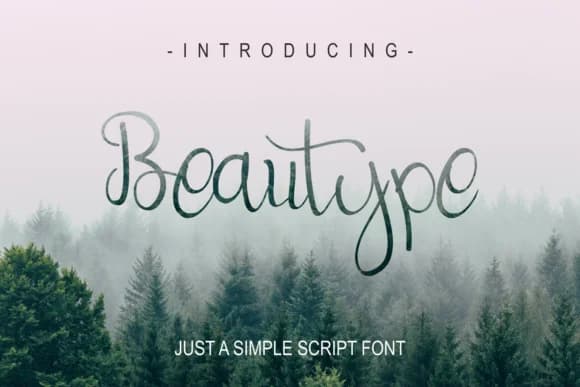
Beautype by Omotu is an elegant script font that brings refined sophistication to typography projects. With its flowing letterforms and polished aesthetic, this font perfectly captures the essence of luxury branding and high-end design work. The graceful strokes and carefully balanced proportions make it particularly well-suited for wedding invitation suites, luxury cosmetics packaging, upscale business stationery, and sophisticated boutique greeting cards. Whether you're designing high-end beauty product labels, creating elegant social media graphics, developing premium brand identities, or crafting luxury retail signage, Beautype provides exactly the refined aesthetic that discerning clients demand.
The font's versatile elegance works seamlessly across both print and digital mediums, maintaining excellent readability while preserving that coveted sense of luxury throughout your designs. Its flowing character set resonates strongly with premium brand identities and upscale design applications. Independent designers, small creative studios, and established agencies can all leverage Beautype to infuse their projects with understated sophistication that speaks directly to discerning audiences. The font's balanced proportions and elegant strokes ensure consistent quality across various applications and scales, from large-format designs to intimate stationery pieces. This makes it an invaluable addition to any designer's typography toolkit.
Beautype Font is a script font that shines as a display or heading face. Pair it with a clean sans-serif or serif font for body text β the contrast creates a clear hierarchy while the two styles stay balanced and easy to read.